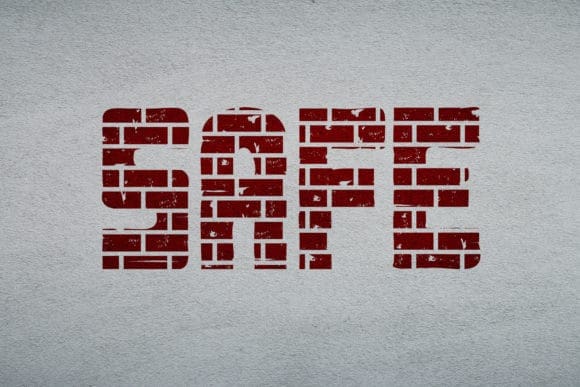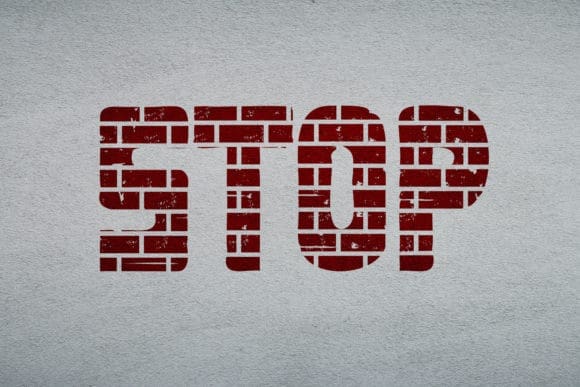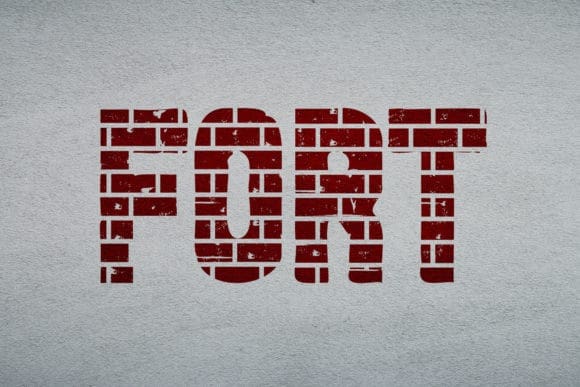
Fort Decorative Font
Fort Decorative Font is a cool and bold display font, featuring characters that resemble bricks. No matter the topic, this font will be an incredible asset to your fonts’ library, as it has the potential to elevate any creation.